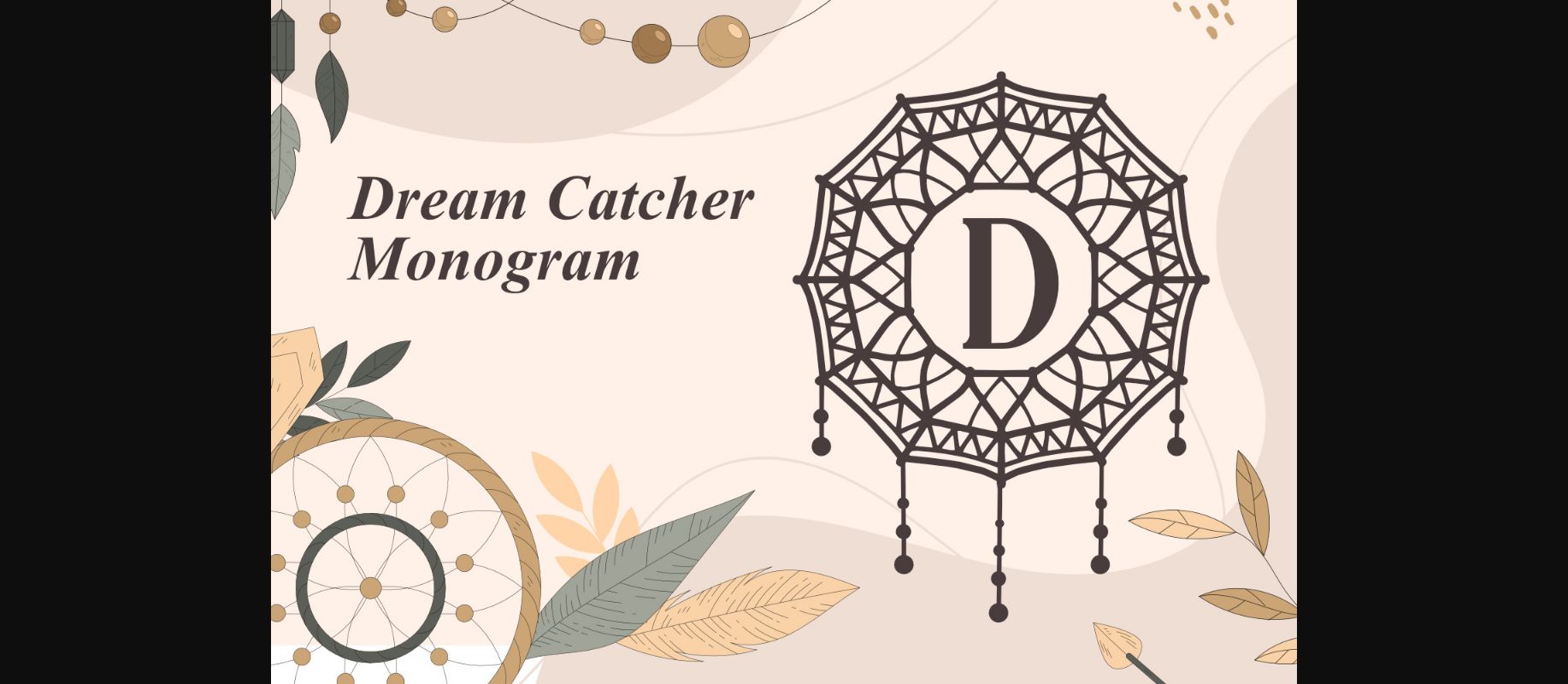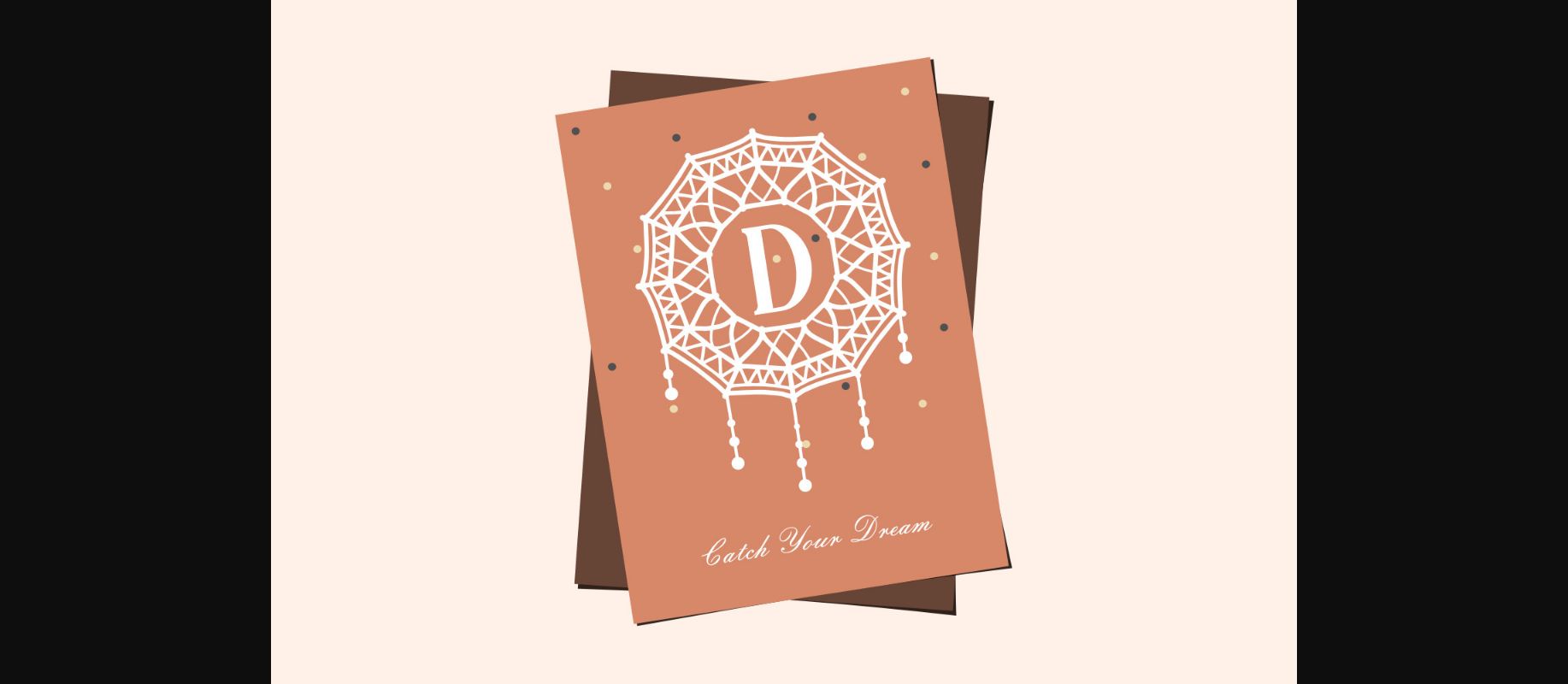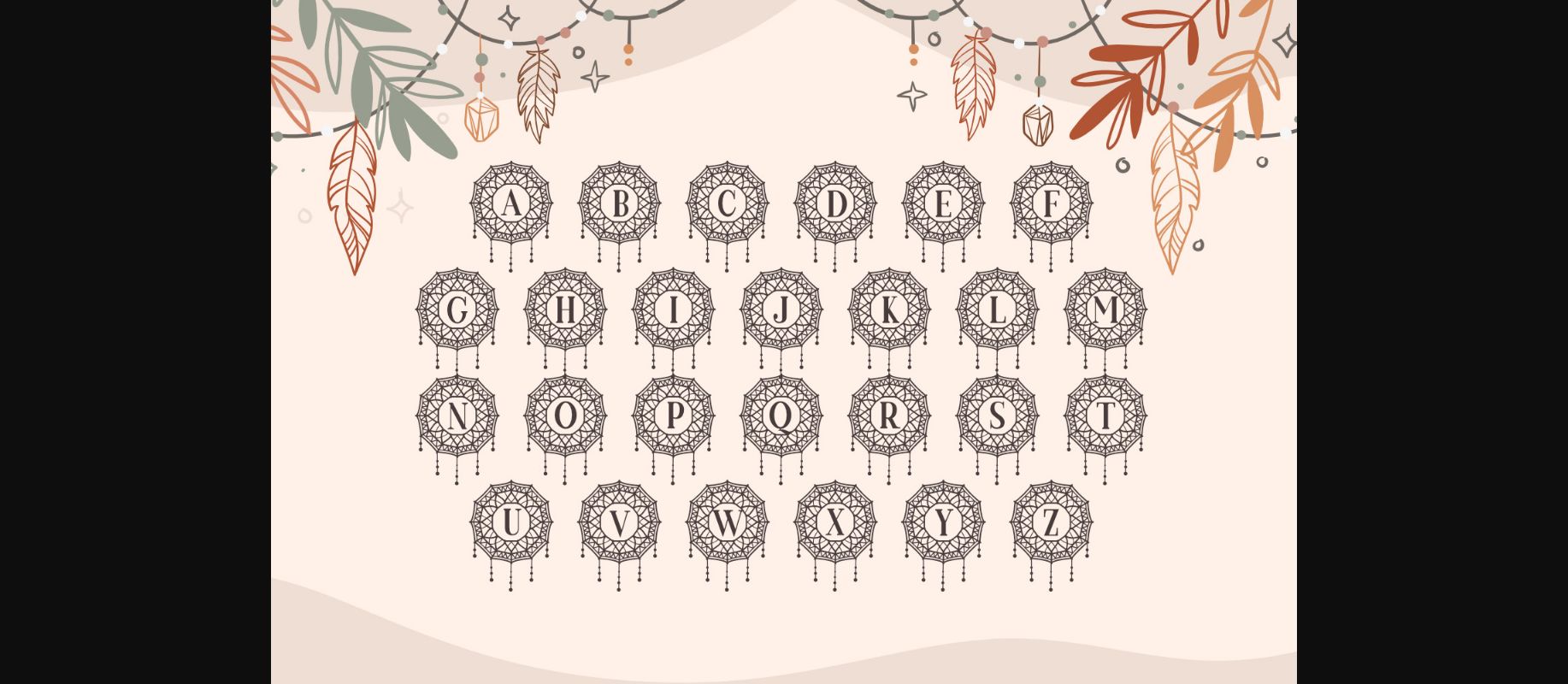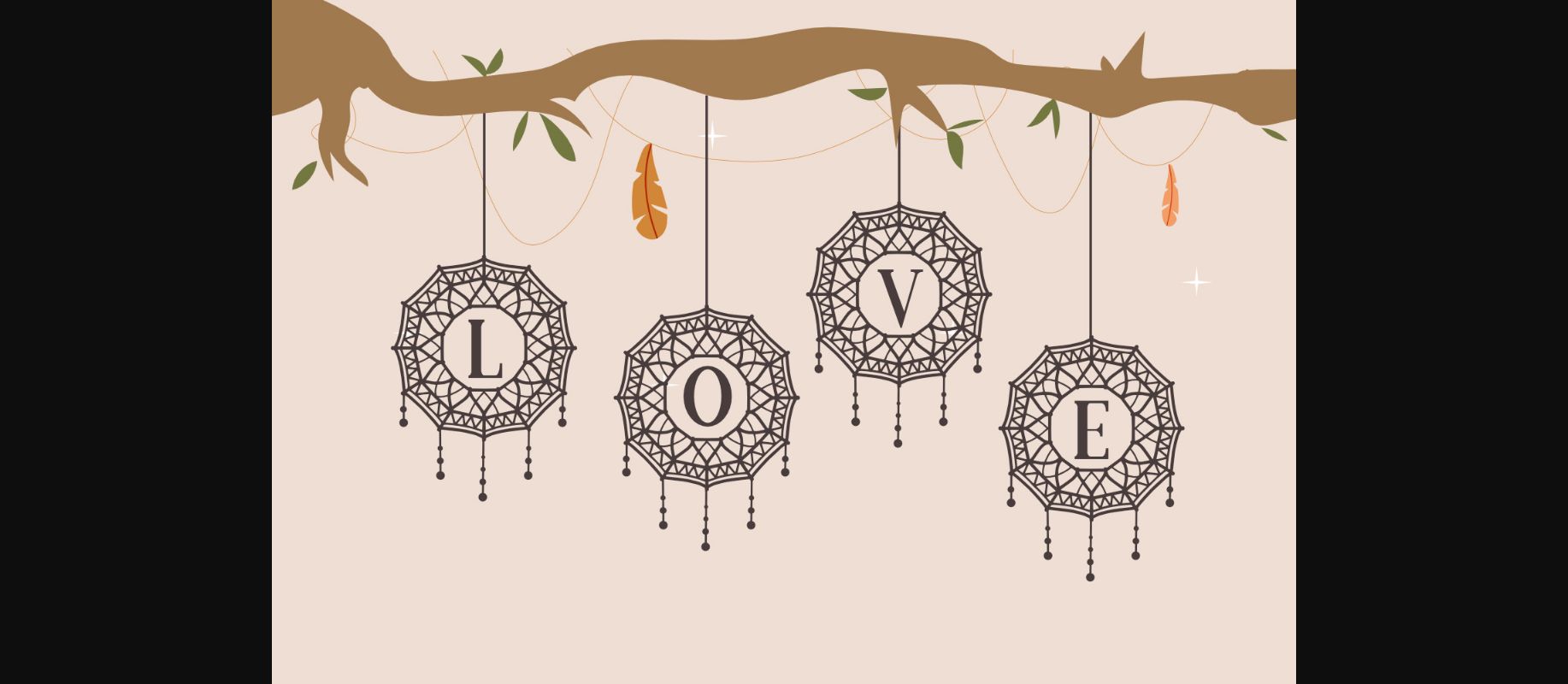
HomeDecorative FontsDream Catcher Monogram Font Decorative Fonts Dream Catcher Monogram Font FacebookXPinterestWhatsApp 1 of 6 ... Dream Catcher Monogram Font Poster 2... Dream Catcher Monogram Font Poster 3... Dream Catcher Monogram Font Poster 4... Dream Catcher Monogram Font Poster 5... Dream Catcher Monogram Font Poster 6... About Dream Catcher Monogram Font Dream Catcher Monogram is a delicate and genuine decorative font. Whether you’re using it for crafting, digital designing, presentations, or greeting card making, it’s perfect! DOWNLOAD NOW People also explored Mitabela Font Cold Night Font Panorama Font Betty Angela Font Tayvis Forever Font Barber Shop Font Soothing Font Erenite Font Christmas Wreath Font 289 0 TagsDream Catcher Monogram Font Previous articleHeart FontNext articleSanta\’s Coloring Font LEAVE A REPLY Cancel reply Comment: Please enter your comment! Name:* Please enter your name here Email:* You have entered an incorrect email address! Please enter your email address here Website: Save my name, email, and website in this browser for the next time I comment. Personal Use Free Sebastopol Personal Use Free Read more about this font Eric”s Personal Use Free Read more about this font 1313 Mockingbird Lane Personal Use Free Read more about this font Drip October Font Personal Use Free Read more about this font BLOG Free Fonts Risk: Why Free Fonts Can Be Dangerous for Designers Free Fonts Risk: Why Free Fonts Can Be Dangerous for Designers Using free fonts is a common practice in web and graphic design. However, the... Best Fonts for YouTube Videos: Make Your Thumbnails Stand Out Using Fonts in Digital Marketing: Tips to Strengthen Your Brand Identity Modern Sans-Serif Fonts That Brands Love in 2025